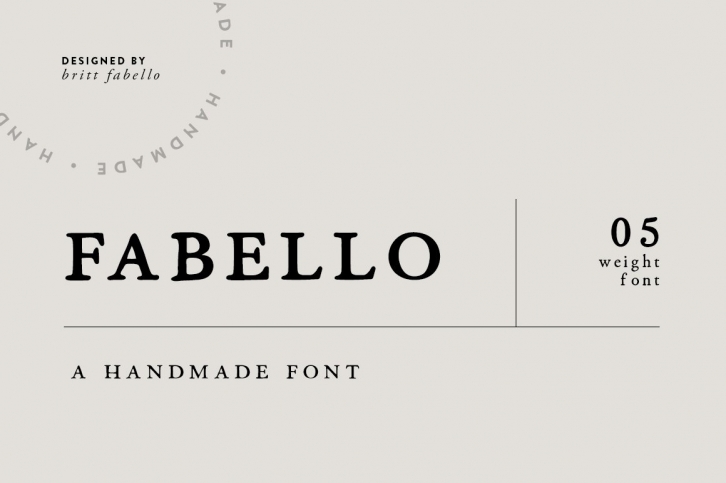
THE FONT STORY // The Fabello handmade font was created to embody my recent design work and lettering style. The font creates a timeless feel while tipping its cap to the past with its vintage-inspired lines. The crisps lines will fool you but zoom in and you get a nice organic wave.
USE FOR THIS FONT // With its bold feel and touch of organic, this font is meant to be versatile. It is perfect for all projects that need anything from a naturally bold or a simple thin style. I recommend medium spacing to let the individual letters do their thing while also working well as a whole. Adjust and play around with it to get it just where you like it!
ABOUT MY FONTS // All fonts are originally created by hand. This one was made with a micron pen. I believe strongly in the handmade design process. It brings a truly unique end result to the table. After the handmade process is complete, the font is scanned in, converted to vector, and made into a working typeface thanks to Fontself.